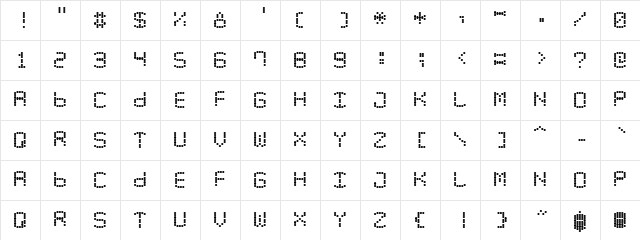
LED Counter Plus 7 Regular
Design Context for LED Counter Plus 7 Typeface
LED Counter Plus 7 is a composed and adaptable typeface that performs quietly and consistently across a wide range of design contexts.